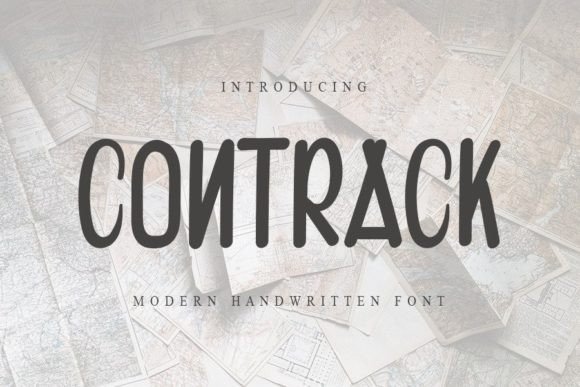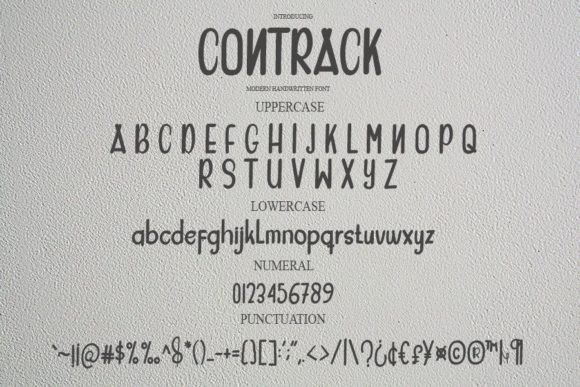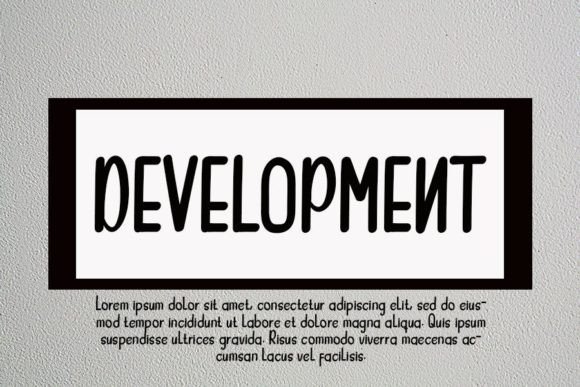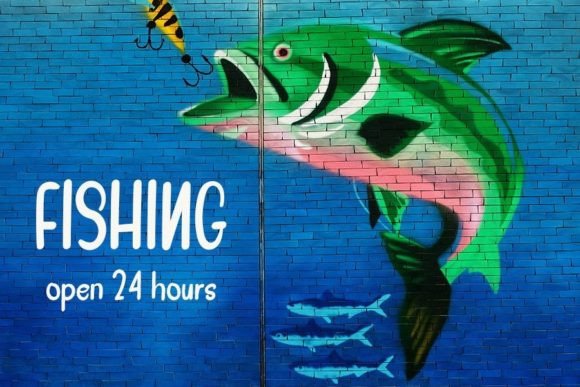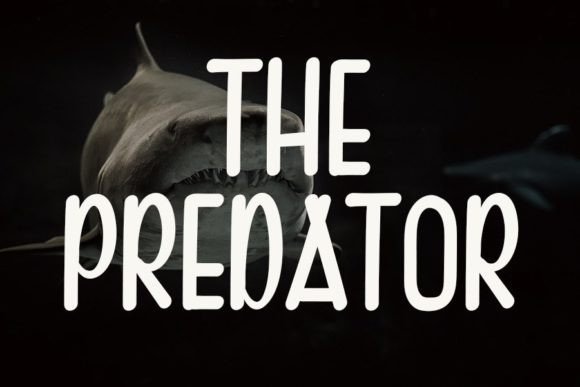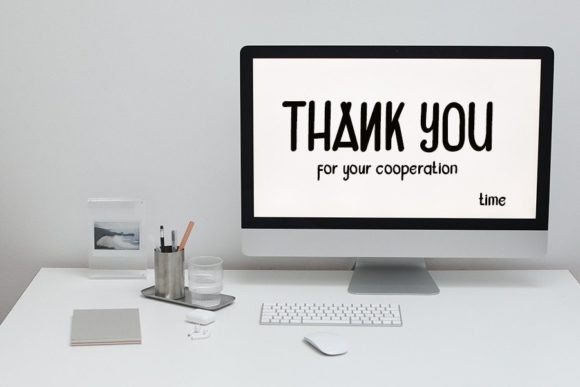
Contrack Font
About Contrack Font
“Contrack” is a charming and personable handwritten font, intricately designed to quickly become a beloved favorite. It seamlessly combines the elegance of calligraphy with a contemporary and refreshing aesthetic, creating a versatile typeface that exudes both sophistication and modernity.
The friendly and approachable nature of “Contrack” makes it an excellent choice for a diverse array of creative projects. Whether employed in digital mediums or integrated into print materials, the font injects a delightful charm that resonates with a broad audience.
While “Contrack” proudly showcases its calligraphic influences, it does so with a modern twist, ensuring its adaptability to various design contexts. From casual and playful projects to more formal and refined applications, the font effortlessly adjusts to different design scenarios, making it a valuable asset for a wide range of creative endeavors.
Incorporating “Contrack” into your designs introduces an element of authenticity and individuality. This makes it well-suited for a variety of purposes, including branding, logo design, invitations, stationery, social media posts, advertisements, and beyond. The font’s friendly yet refined aesthetic promises a positive and memorable impact in any context.
The delicate balance achieved in “Contrack” between maintaining its calligraphic roots and infusing a contemporary freshness results in a font that stands out with universal appeal. By offering a design that is both timeless and current, “Contrack” positions itself as a genuine favorite for those seeking a handwritten font that resonates across different styles and preferences.
Whether you’re working on creative projects that demand a touch of friendliness and elegance, or you’re seeking a font that effortlessly blends tradition with a modern edge, “Contrack” is meticulously crafted to meet these needs. This font transforms text into a visual expression of warmth and sophistication, ensuring that each use becomes an enjoyable and memorable experience for your audience.